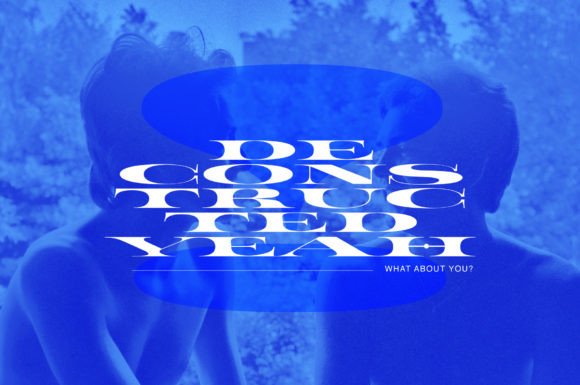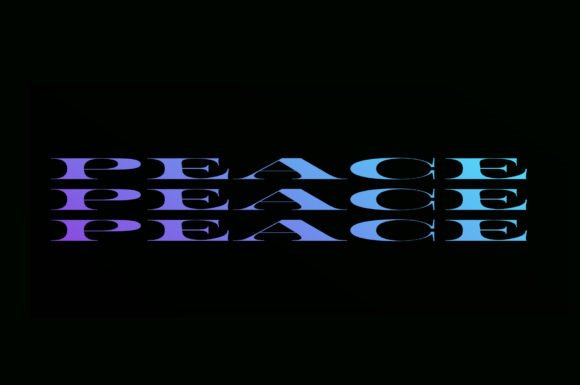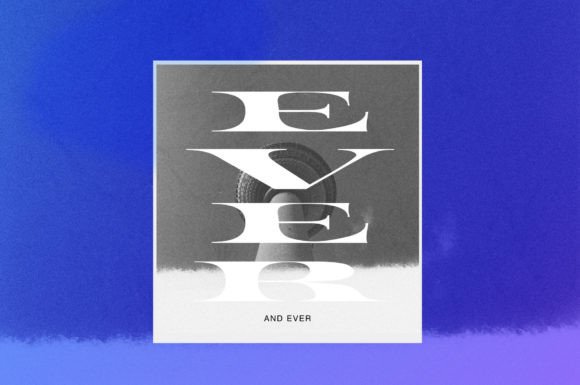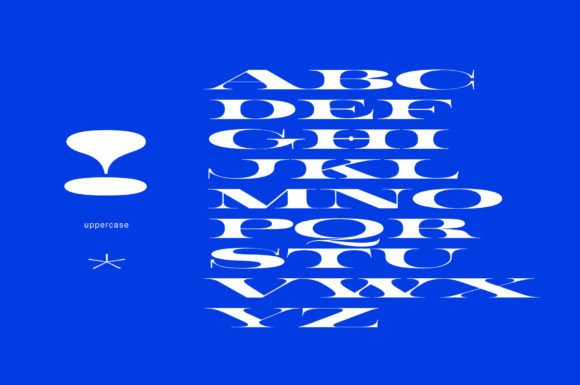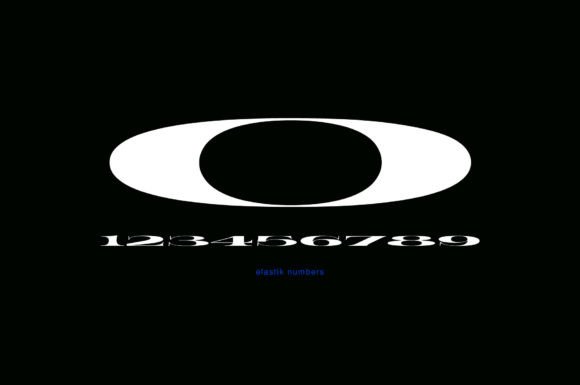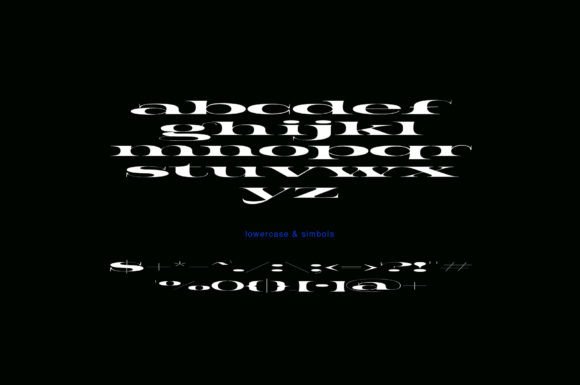
Introducing Elastik Font: A Stunning Serif Typeface for Attention-Grabbing Headlines
Are you tired of using the same old fonts for your designs? Look no further than Elastik Font, a super wide serif typeface that’s sure to grab attention and make your work stand out. With its unique curves and stunning visuals, Elastik is the perfect choice for designers and crafters looking to add a touch of elegance and sophistication to their projects.
What Makes Elastik Font So Special?
Elastik Font is a gorgeous, super wide serif typeface that’s designed to make a statement. Its elegant curves and refined lines make it perfect for attention-grabbing headlines, titles, and posters. Whether you’re working on a branding project, a marketing campaign, or simply want to add some flair to your social media graphics, Elastik is the perfect choice.
One of the things that sets Elastik apart from other fonts is its incredible versatility. This font works perfectly for a vast variety of projects, from bold and dramatic to elegant and refined. Whether you’re looking to create a stunning logo, a beautiful poster, or a eye-catching social media graphic, Elastik has got you covered.
Why Choose Elastik Font?
So why choose Elastik Font over other fonts on the market? Here are just a few reasons why designers and crafters love this stunning typeface:
- Attention-grabbing headlines: Elastik Font is designed to grab attention and make a statement. Its bold, wide serifs make it perfect for headlines and titles that need to stand out.
- Elegant and refined: Despite its bold appearance, Elastik Font is also incredibly elegant and refined. Its smooth curves and refined lines make it perfect for projects that require a touch of sophistication.
- Incredibly versatile: Elastik Font works perfectly for a vast variety of projects, from bold and dramatic to elegant and refined.
- Easy to read: Despite its bold appearance, Elastik Font is also incredibly easy to read. Its clear lines and simple curves make it perfect for projects where legibility is key.
How to Use Elastik Font
To get the most out of Elastik Font, be sure to experiment with different font sizes, colors, and styles. You can also combine Elastik Font with other fonts to create stunning contrast and visual interest.
Tips and Tricks for Working with Elastik Font
Here are a few tips and tricks for working with Elastik Font:
- Experiment with font sizes: Elastik Font looks great at a wide range of font sizes, from small and elegant to large and bold.
- Play with color: Elastik Font looks great in a wide range of colors, from bold and bright to subtle and muted.
- Combine with other fonts: Elastik Font pairs perfectly with a wide range of other fonts, from simple sans serifs to elegant script fonts.
- Pay attention to kerning: As with any font, be sure to pay attention to kerning when working with Elastik Font. This will help ensure that your text looks professional and polished.
Elastik Font is a stunning, super wide serif typeface that’s perfect for attention-grabbing headlines, titles, and posters. With its elegant curves and refined lines, Elastik is the perfect choice for designers and crafters looking to add a touch of elegance and sophistication to their projects.